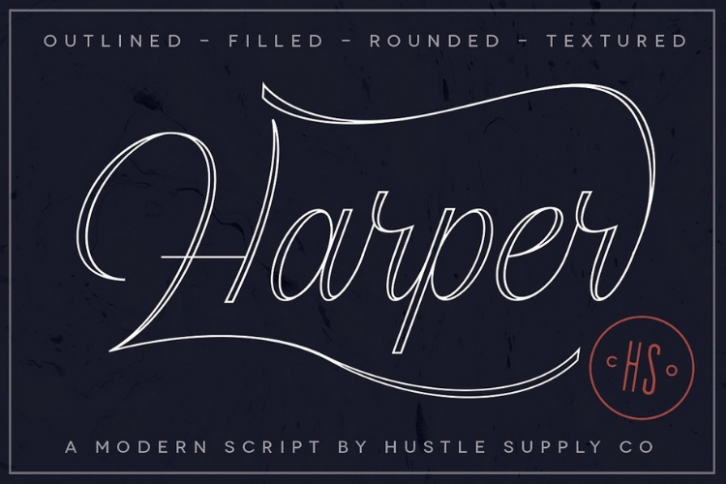
Harper Script is a gorgeous font that was realeased on November 21, 2018. The font can be used in many style contexts and design environments. Perfect for invitations, magazines, websites, logos, and more! It was designed by Hustle Supply Co. and the file size is 2.17 MB. Thanks for checking out this font!